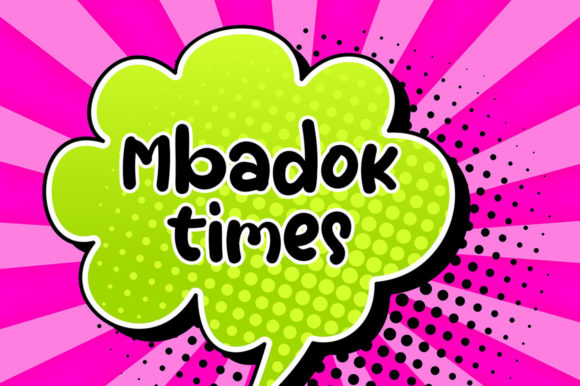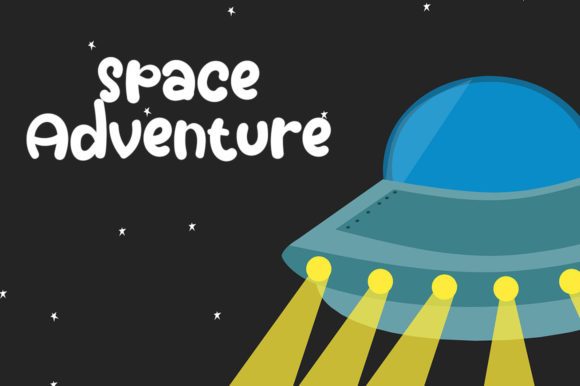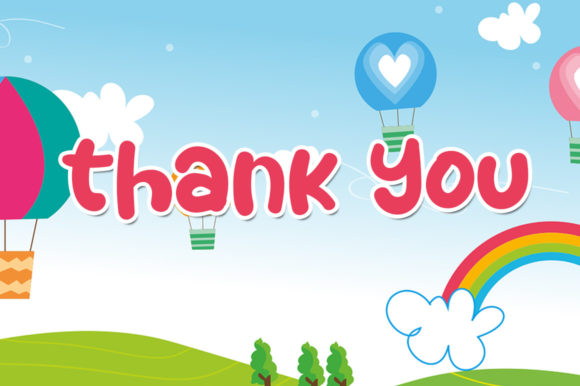
Introducing Aliance Sicolly Font: Elevate Your Designs with Elegance and Joy
Are you on the hunt for a font that embodies the perfect blend of freshness, cleanliness, and elegance? Look no further than Aliance Sicolly Font. This stunning display font is designed to bring a touch of sweetness and joy to your designs, making it an ideal choice for a wide range of projects, from formal presentations to informal social media graphics.
What Makes Aliance Sicolly Font Stand Out?
Aliance Sicolly Font is not just another font; it’s an experience. Its unique characteristics make it a versatile tool for designers and crafters looking to add a personal touch to their work. Here are a few reasons why Aliance Sicolly Font should be at the top of your font wishlist:
- Fresh and Clean: The font boasts a clean design that ensures readability and sophistication. Whether you’re working on a website, a logo, or a marketing material, Aliance Sicolly Font keeps your design looking crisp and modern.
- Elegant and Versatile: Elegance is at the core of Aliance Sicolly Font. Its elegant strokes and beautiful curves make it suitable for formal events, luxury brands, and high-end products. However, its friendly and approachable vibe also makes it perfect for informal projects, such as social media posts, blogs, and more.
- Joyful Touch: What sets Aliance Sicolly Font apart is its ability to add a joyful touch to your designs. In a world where digital content can sometimes feel monotonous, this font injects personality and fun into your creations, making them stand out in a crowded digital landscape.
The versatility of Aliance Sicolly Font is one of its most compelling features. It’s designed to excel in a multitude of applications, including but not limited to:
- Branding and Logos: Create a lasting impression with a logo that exudes elegance and professionalism.
- Web Design: Enhance your website’s aesthetic appeal and make your content more engaging with this beautiful font.
- Social Media Graphics: Stand out on social media platforms with eye-catching graphics and posts that reflect your brand’s personality.
- Marketing Materials: From brochures to flyers, Aliance Sicolly Font can elevate your marketing materials, making them more effective and visually appealing.
- Art and Craft Projects: For crafters and artists, this font can add a professional touch to handmade products, art portfolios, and more.
Why Choose Aliance Sicolly Font?
In a market saturated with fonts, Aliance Sicolly Font offers a unique combination of style, versatility, and personality. Here are a few reasons why designers and crafters are falling in love with this font:
- Easy to Read: Despite its elegant and decorative nature, Aliance Sicolly Font maintains high readability, ensuring your message is communicated effectively.
- Customizable: The font comes with a range of features that allow for customization, making it easy to adapt to your project’s specific needs.
Aliance Sicolly Font is more than just a font; it’s a design solution that can transform your projects with its fresh, clean, and elegant aesthetic. Whether you’re a professional designer or a crafter, this font offers the perfect blend of form and function. Add a joyful touch to your designs and take your projects to the next level with Aliance Sicolly Font. Explore its possibilities today and discover how it can make your work shine.
So, what are you waiting for? Dive into the world of Aliance Sicolly Font and let your creativity soar. With its unmatched elegance and joyful vibe, this font is sure to become your go-to choice for all your design needs.